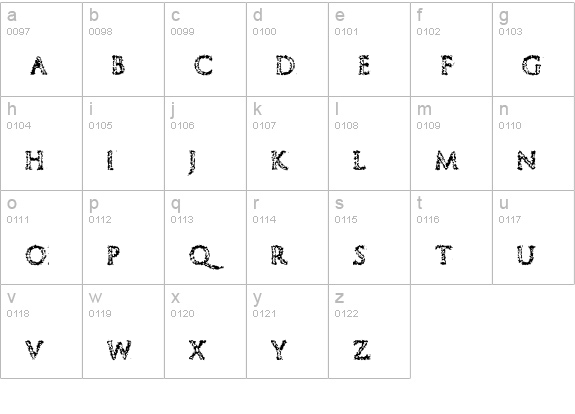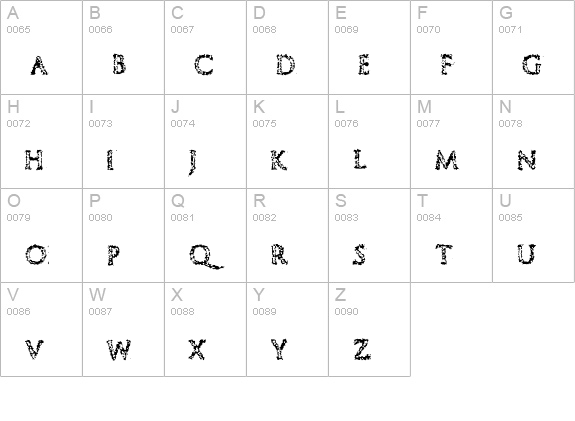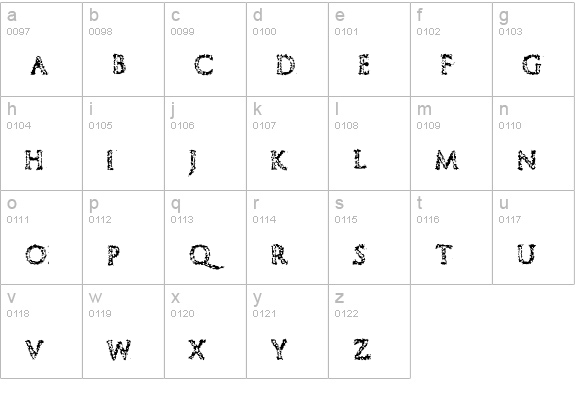
End of Path font is a striking display typeface that captures attention with its unique style and modern aesthetic. Its bold letterforms and sharp edges make it perfect for headlines, logos, and branding projects that require a strong visual impact. The font exudes a sense of sophistication and creativity, making it ideal for design projects that aim to make a statement. What sets End of Path font apart is not only its impressive design but also the fact that it is completely free to download. This means that you can enhance your creative projects without any additional cost. You can easily access and download the End of Path font at FontsMarket.com, where you will find a wide range of other high-quality fonts to explore and use in your designs. Don't miss out on the opportunity to elevate your projects with this captivating font that is both stylish and freely available.